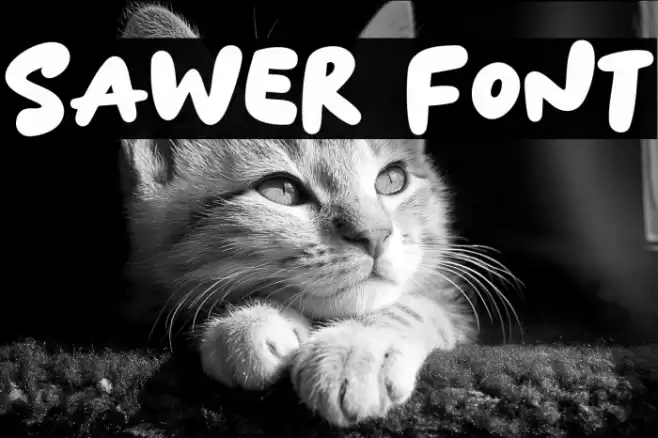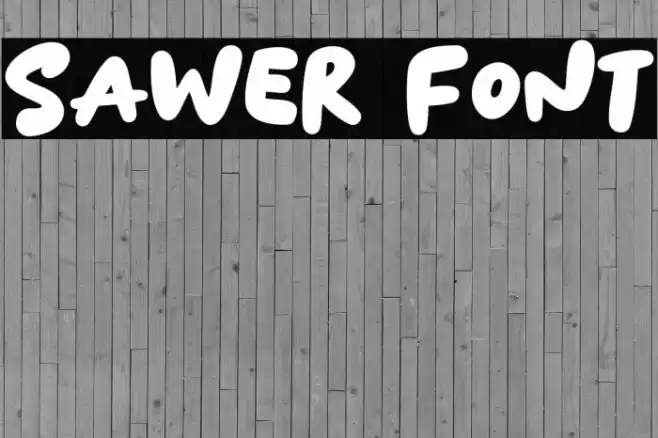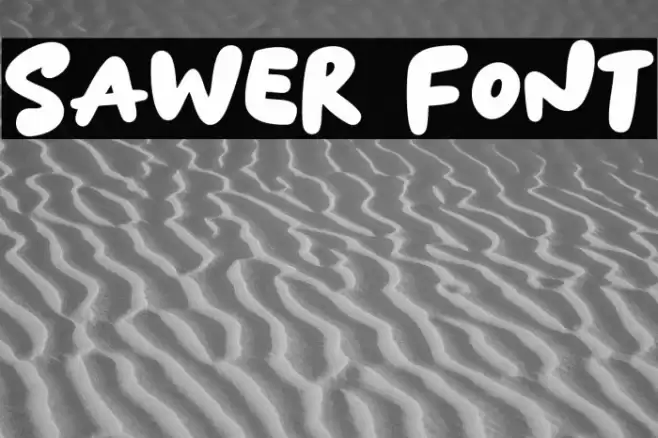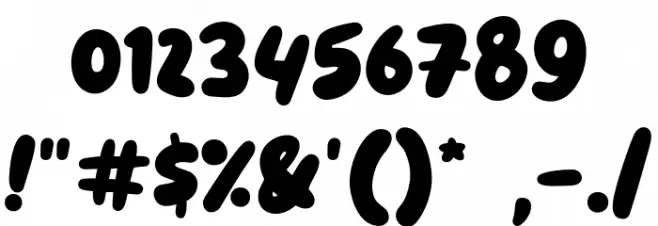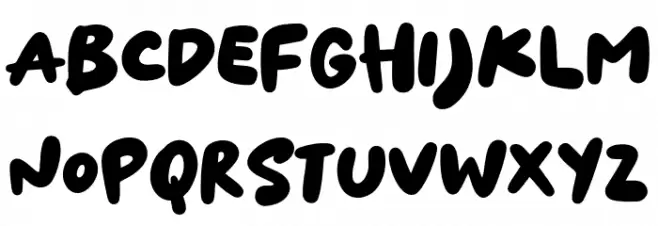
Sawer Font
Sawer Description
This playful and bold font features thick, rounded strokes that give it a friendly and approachable appearance. The characters are slightly irregular, adding a hand-drawn feel to the overall design. The uppercase and lowercase letters maintain a consistent style, with smooth curves and a slightly exaggerated width. Numbers and special characters are designed to match the bold and lively aesthetic, making the font suitable for eye-catching designs. The font's unique style makes it ideal for projects that require a touch of whimsy and creativity.
A bold, playful font with rounded, hand-drawn characters from Uncategorized fonts.
- Font: Sawer
- Proposed Projects: Ideal for children's books, playful branding, posters, and social media graphics.
- Width: Expanded
- Overall Style: Playful